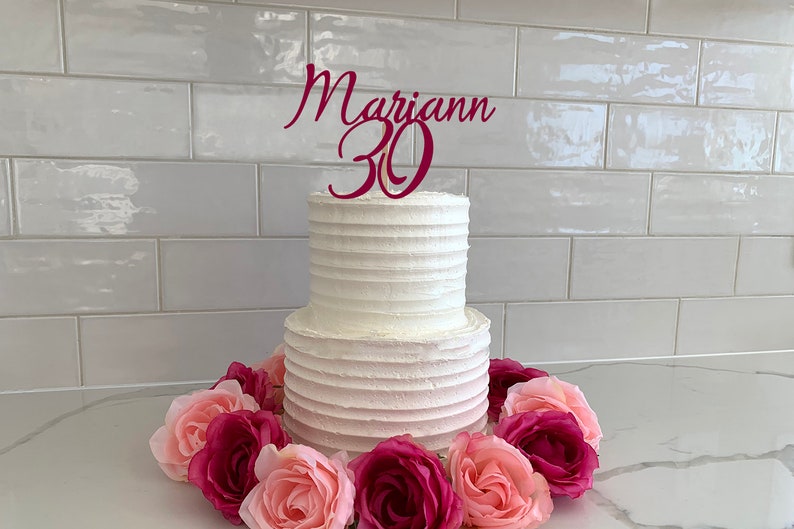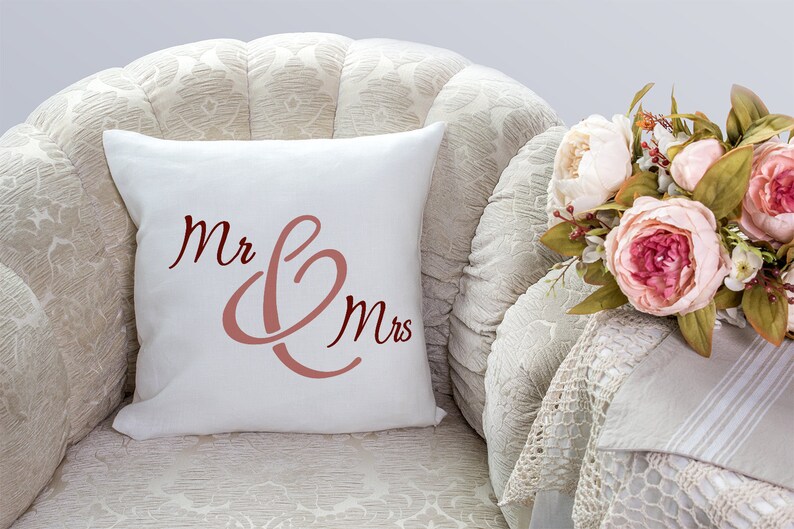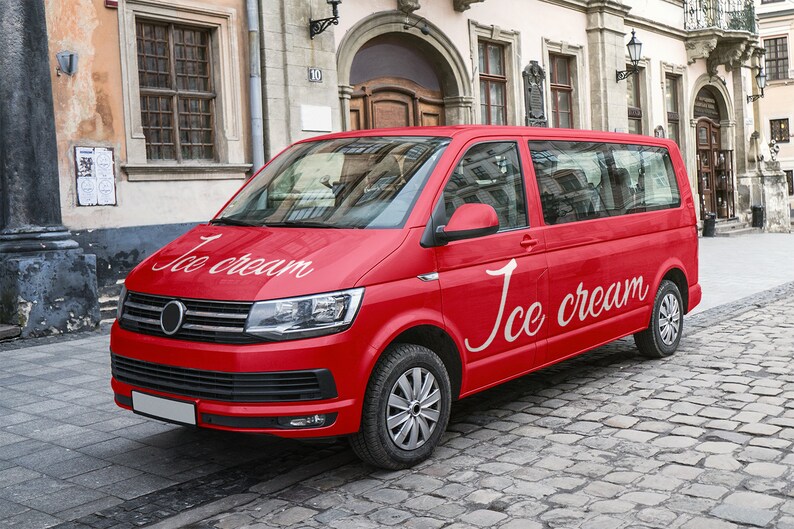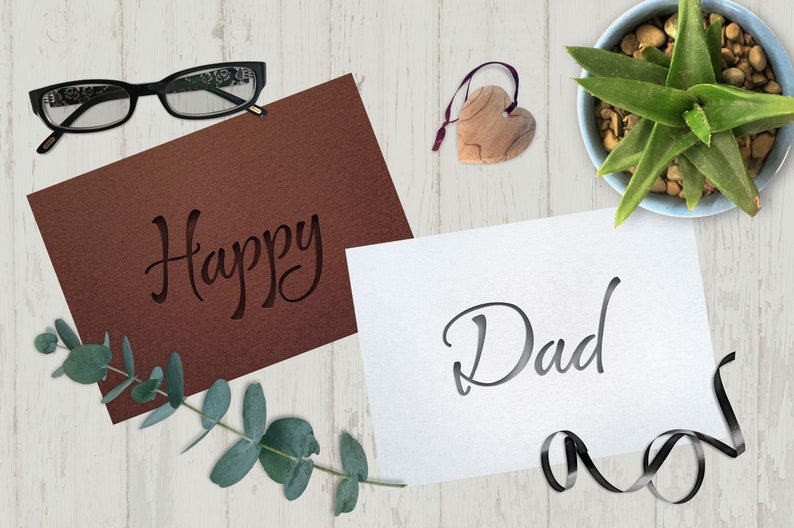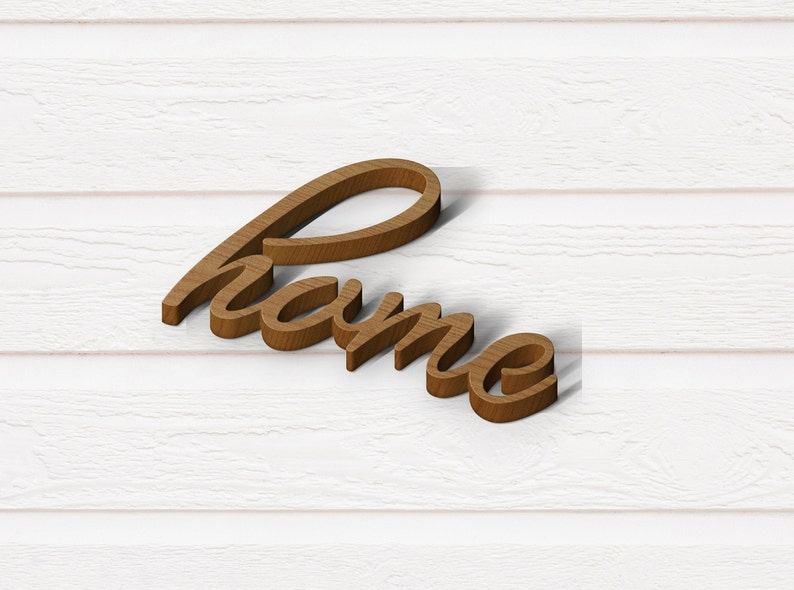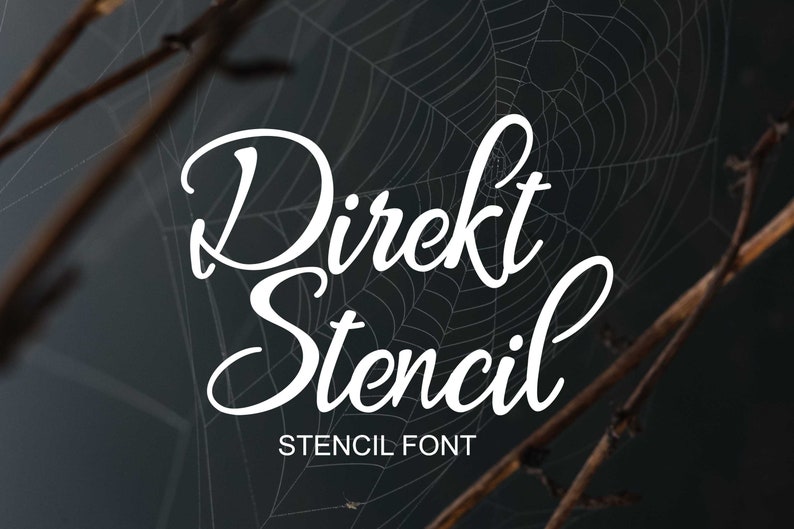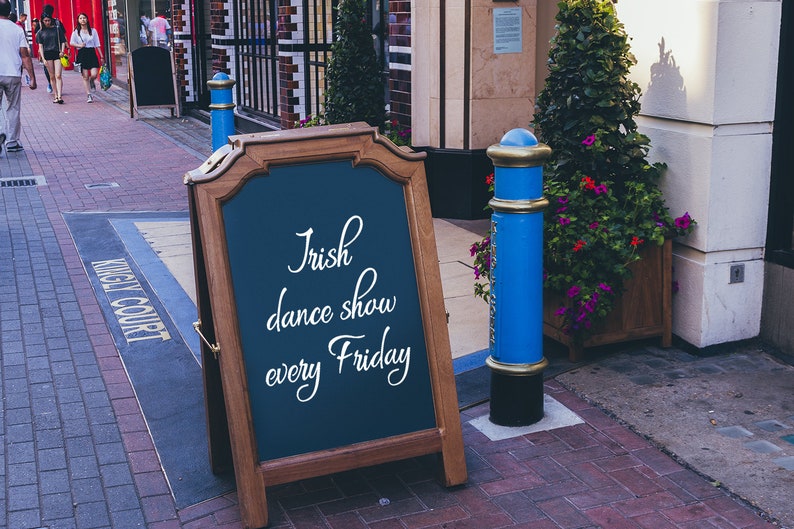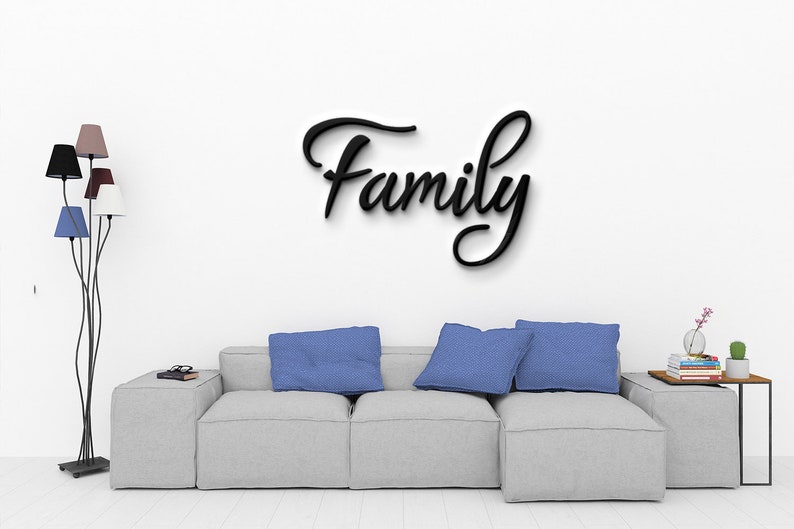
Direkt Stencil is a versatile stencil font without closed loops on the characters. It is ideal for cutter machines.
- Characters are as it is shown in the example